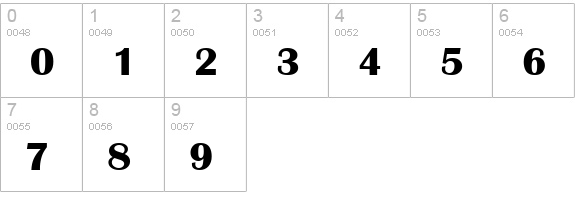
Bristol-Bold-Regular is a strong, high-contrast variant in the Bristol typeface family \xE2\x80\x94 well suited to headlines, attention-grabbing titles, and strong calls-to-action.
Bristol-Bold-Regular is a modern and versatile typeface that exudes confidence and sophistication. Its bold weight commands attention while maintaining a sense of elegance, making it perfect for a wide range of design projects. With clean lines and a timeless aesthetic, this font is sure to make a statement in any application. The best part? Bristol-Bold-Regular is available for free download at FontsMarket.com. Whether you're designing a logo, creating a poster, or working on a branding project, this font will elevate your work and give it a professional touch. Don't miss out on the opportunity to add this stylish and impactful typeface to your font collection today.